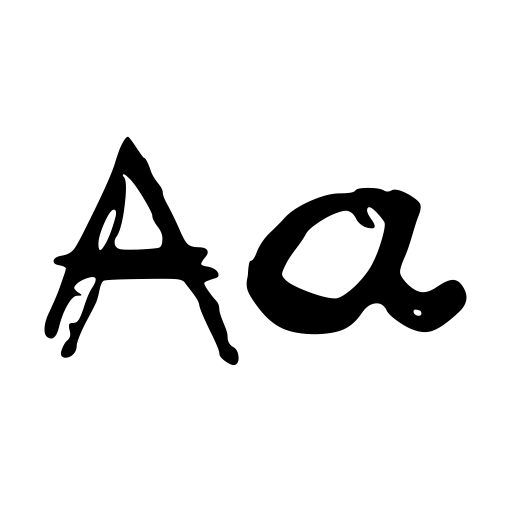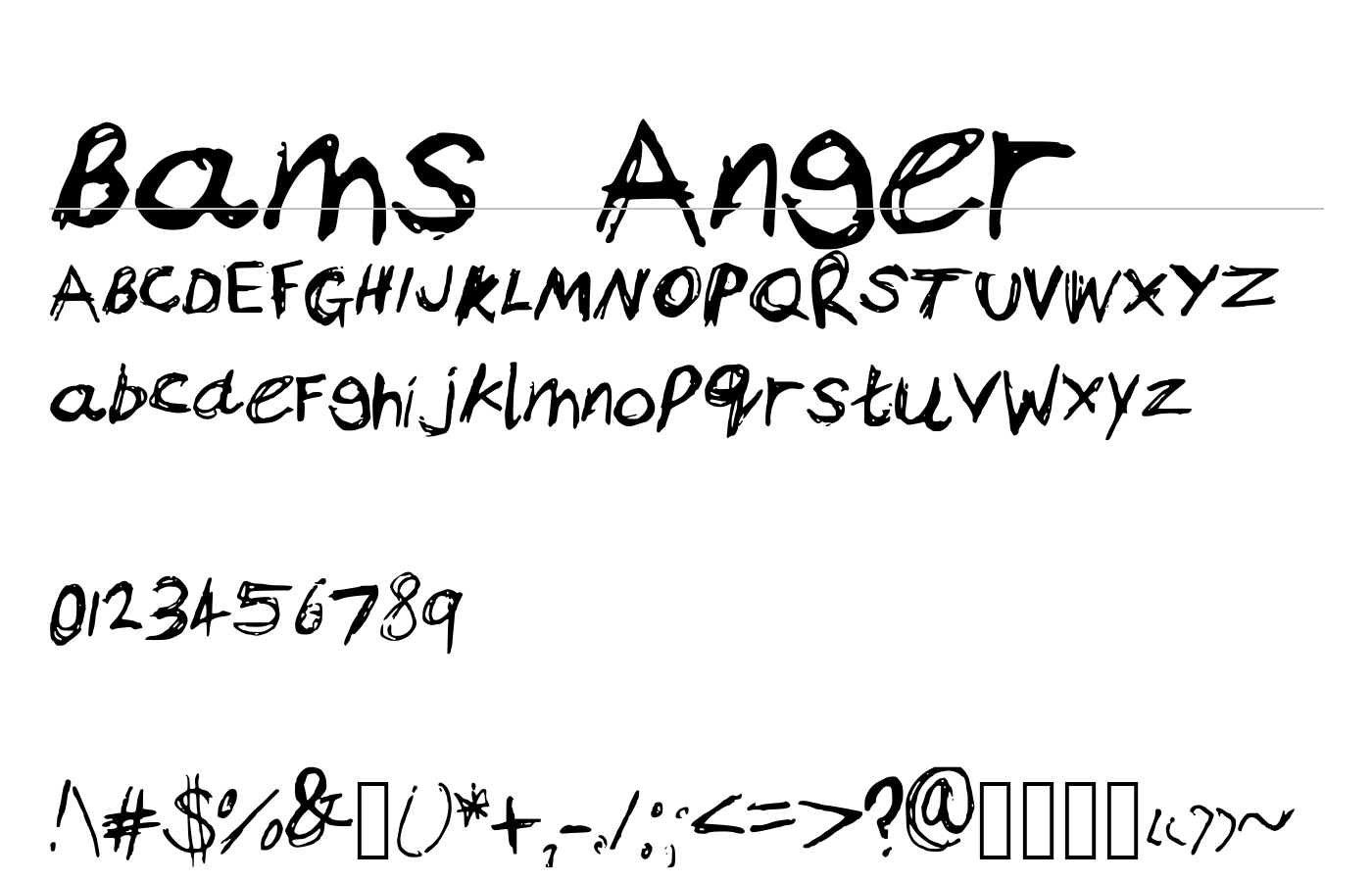
Bams Anger is a bold and expressive handwritten font with an irregular, rough texture that gives it a raw and edgy feel. Its uneven strokes and playful letterforms create a sense of urgency and intensity, making it ideal for designs that need to convey strong emotion or a rebellious attitude. This font works best in creative projects like posters, album covers, or edgy branding where a unique, striking personality is desired.
Bams Anger Font
About Bams Anger Font